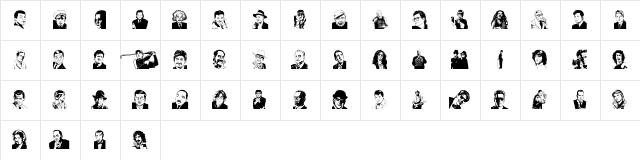
UdeMAN Regular
Design Context for UdeMAN
UdeMAN is a composed and adaptable typeface that performs quietly and consistently across a wide range of design contexts.